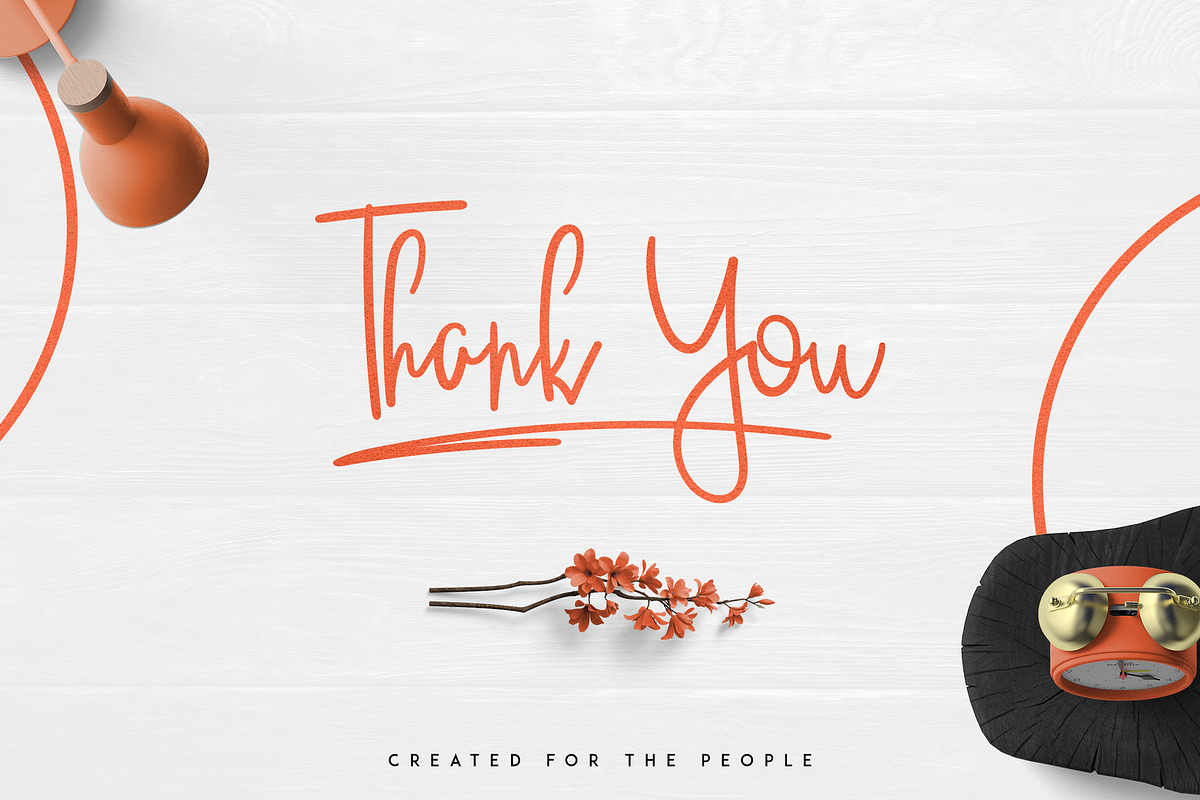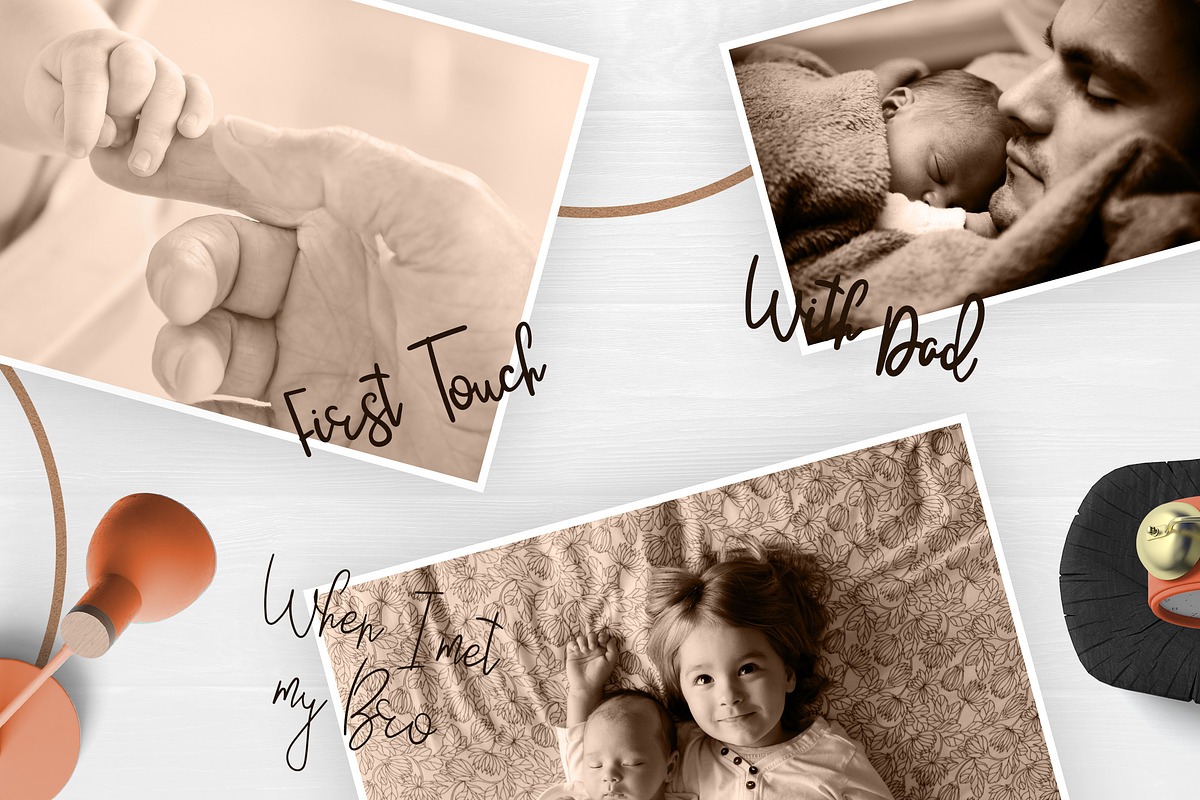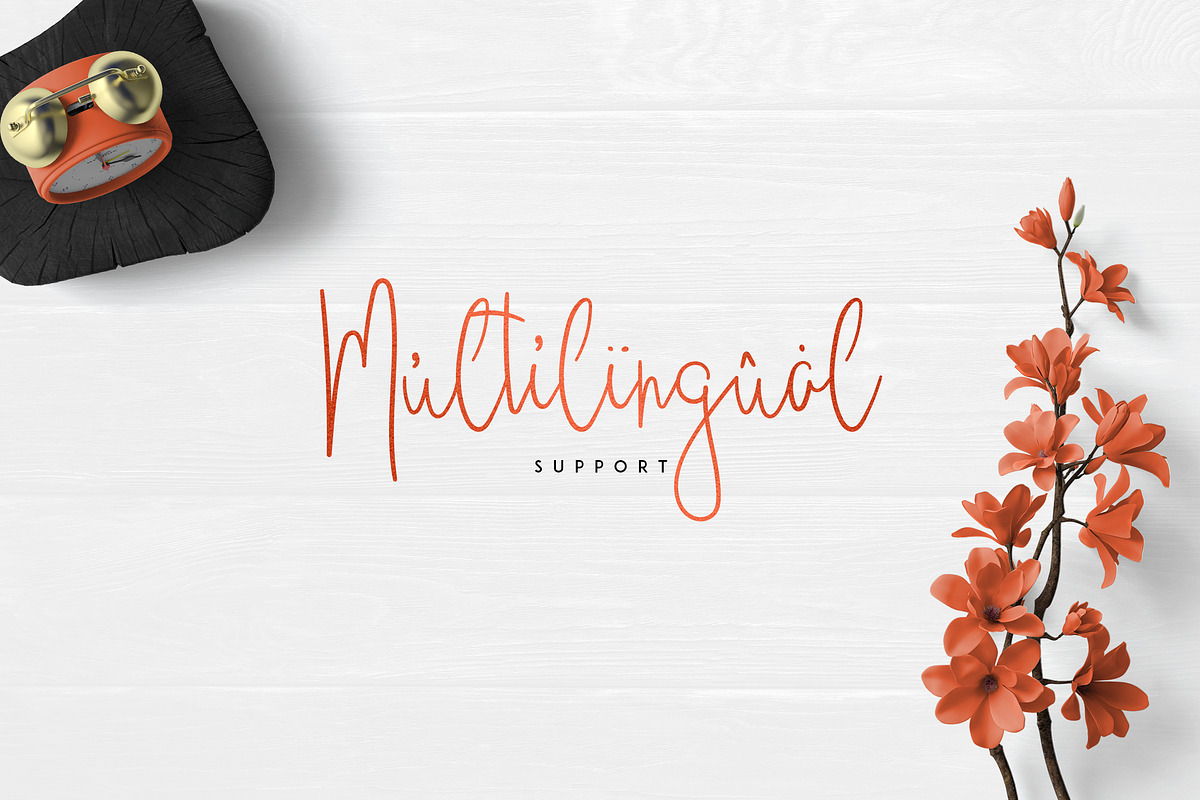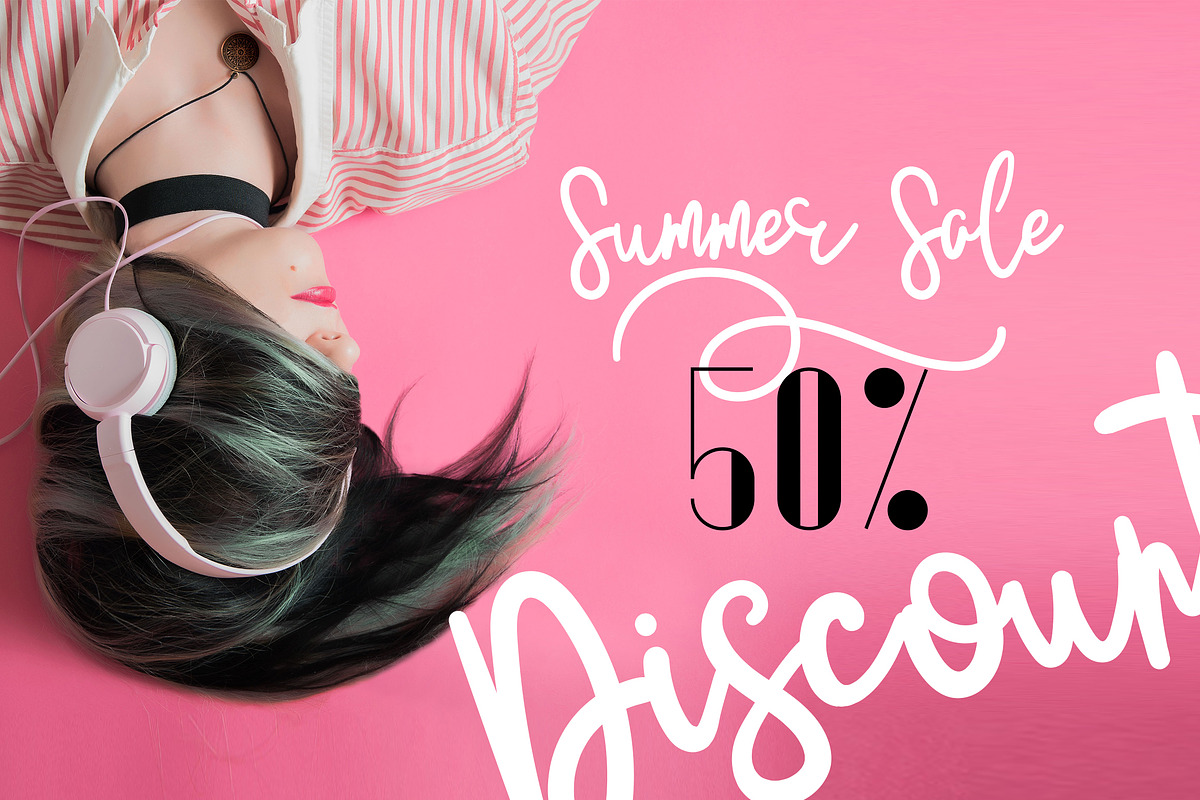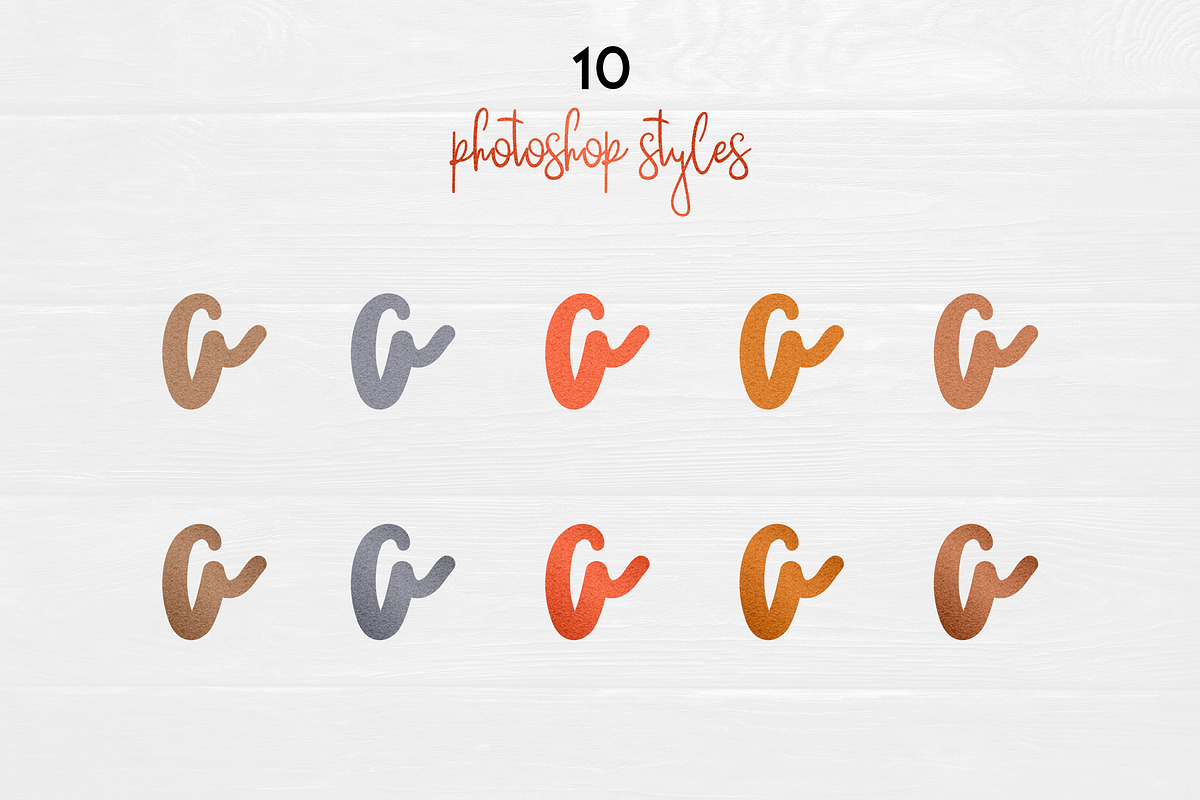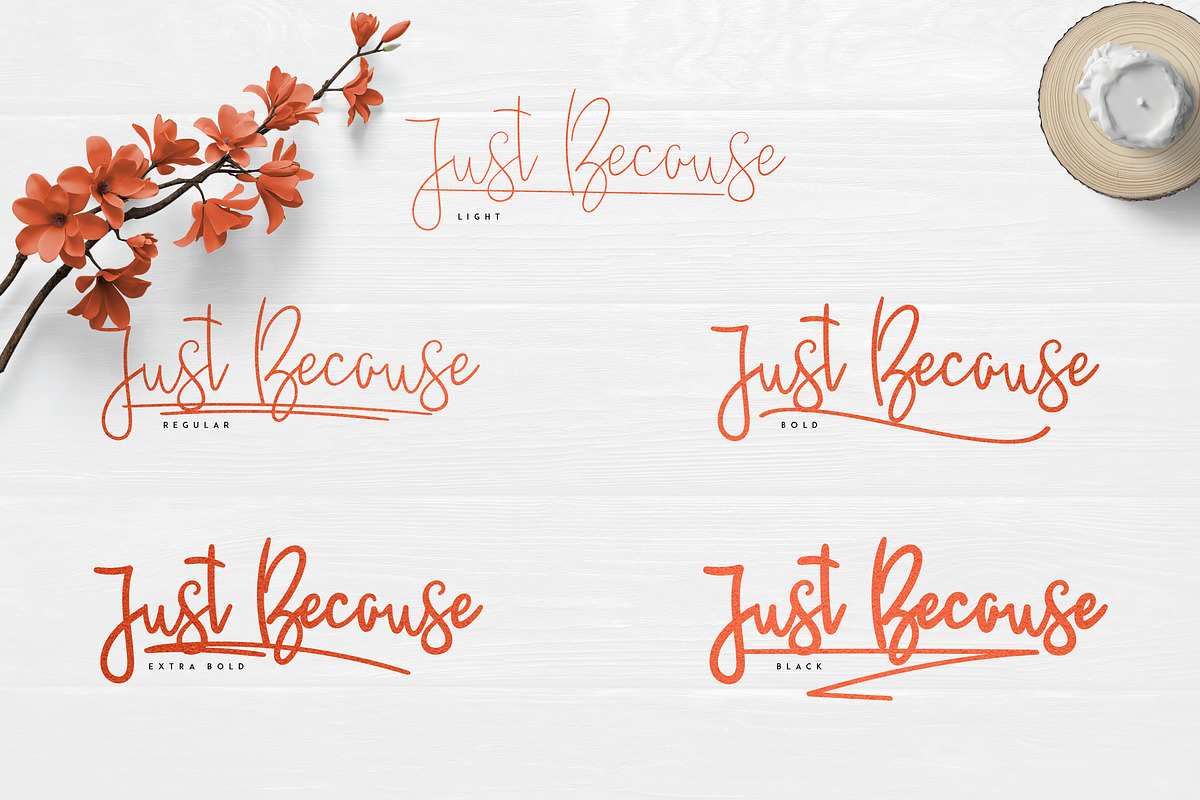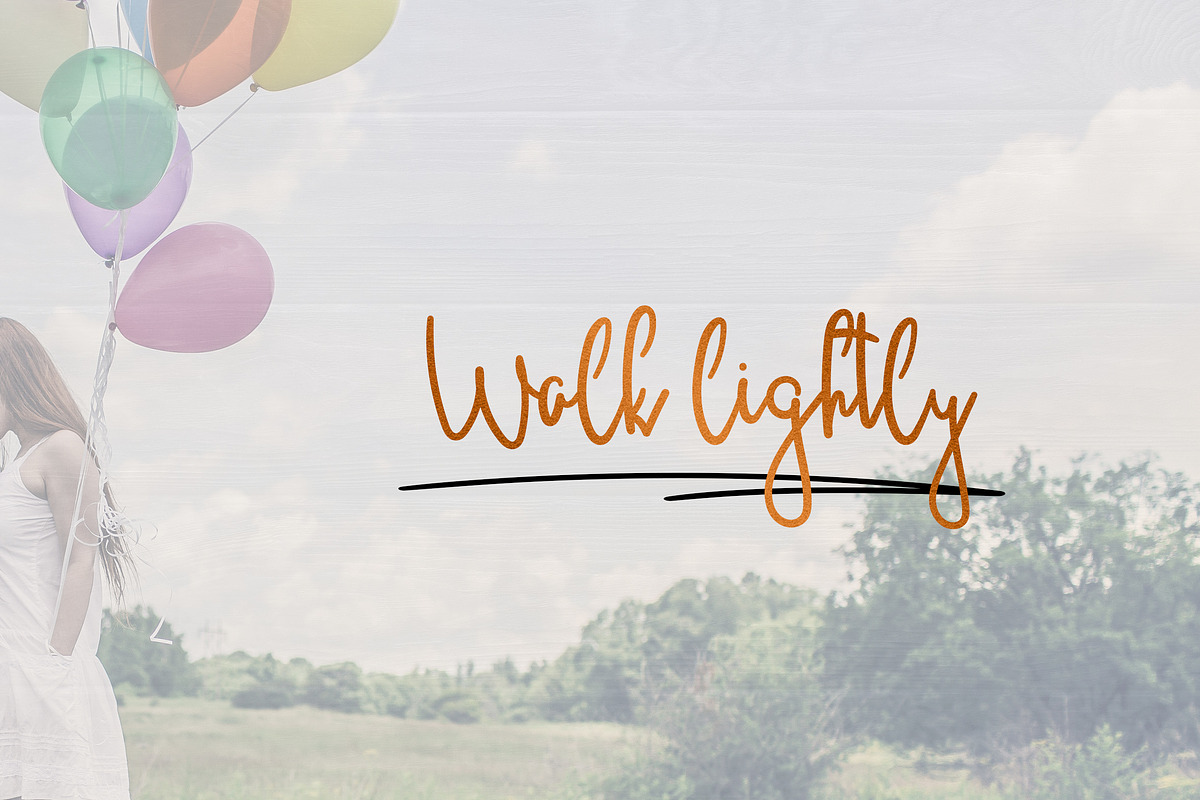
JustBecause font family -50%
JustBecause is clean, hand drawn typeface with 5 fonts, swashes, photoshop styles and multilingual support. It's a very versatile font that works great in large and small sizes.
JustBecause is perfect for branding projects, home-ware designs, product packaging, magazine headers - or simply as a stylish text overlay to any background image.